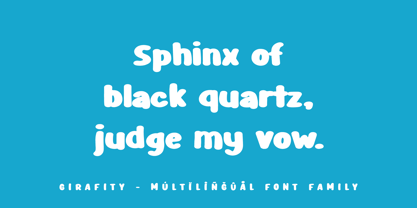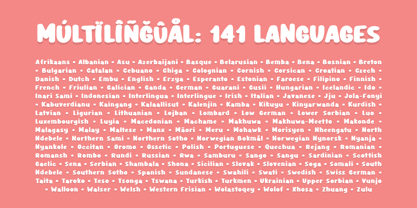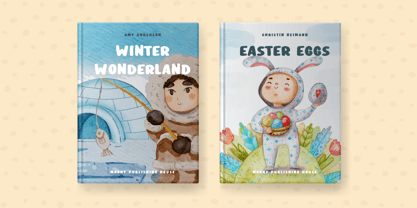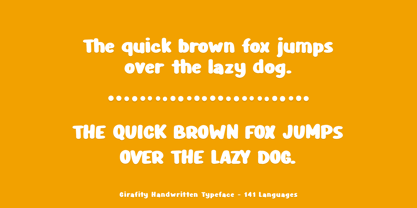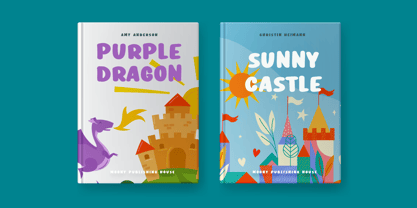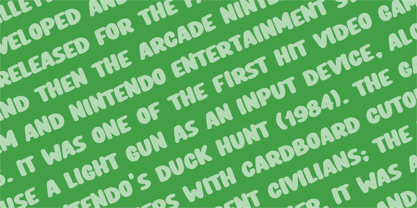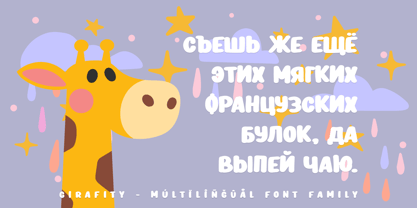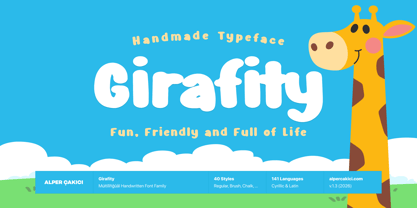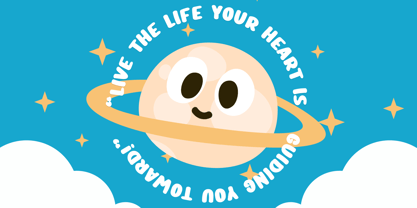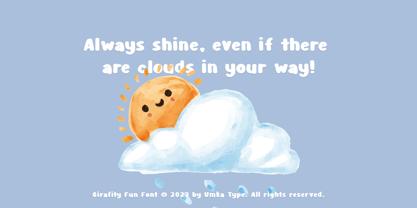
Girafity
by AlperCakici
The Girafity Font Family was designed by Alper Çakıcı and published by AlperCakici. Girafity contains 40 styles and family package options.
Girafity is a bold, playful handwritten typeface that radiates youthful energy and expressive charm. Designed to evoke spontaneity, fun, and a hint of wildness, Girafity embodies the carefree spirit of childhood drawings while offering professional-grade versatility. With support for 141 languages, it caters to global creativity, encompassing European and African languages along with extended Latin coverage for multilingual branding and publishing. Girafity features chunky handwritten strokes combined with a confident, bold structure, resulting in a friendly, approachable, and highly legible typeface. It's ideal for projects that require warmth and character without compromising clarity. The family includes multiple expressive styles: Angular, Brush, Chalk, Eroded, Graphite, Liner, Pencil, Rough, and Wax, along with Regular, Italic, and Outline companions for dynamic layering. From clean bold lettering to textured chalkboard effects, and from playful brush strokes to rough eroded edges, Girafity adapts seamlessly to your creative direction. Children’s books - Educational materials - Toy packaging - Comic titles - YouTube thumbnails - Posters & bold headlines - School branding - Craft & DIY branding - Stickers & merch - Social media graphics Bold, attention-grabbing forms - Handwritten authenticity - Multilingual coverage (141 languages) - Highly legible even at display sizes Girafity makes typography fun again. Whether designing for children, building a playful brand, or creating striking headline graphics, Girafity infuses personality into every letter. Let your creativity run wild with Girafity.